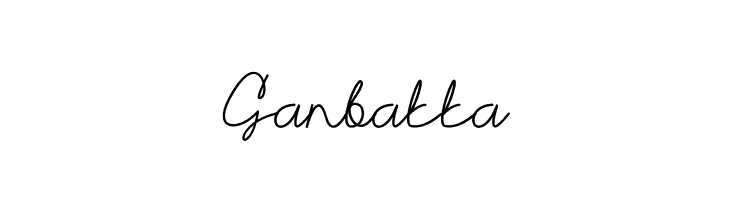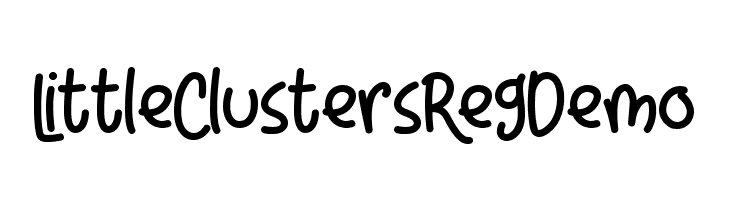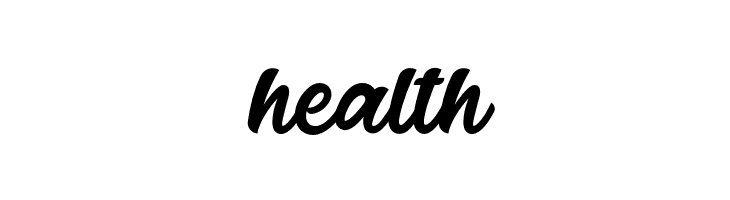
A playful, hand-drawn font with rounded, casual characters.
A playful, informal handwritten font with uneven strokes and a casual appearance.
A playful, romantic cursive font with elegant loops and smooth connections.
An elegant script font with flowing lines and intricate curves, perfect for sophisticated designs.
A bold, decorative font with heart patterns on each character.
A bold, cursive font with dynamic, flowing script and decorative flourishes.
An elegant, high-contrast script font with flowing, cursive strokes.
A lively handwritten font with a playful and modern style.
An elegant and flowing script font with graceful curves and artistic charm.